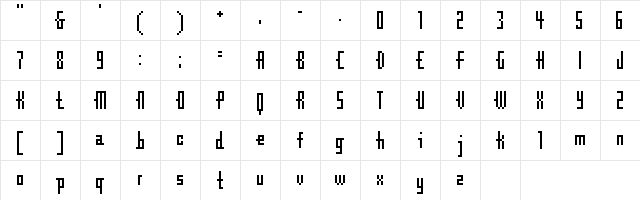
Cubebitmap 12point
Design Context for Cubebitmap Typeface
Cubebitmap celebrates the constraints of early digital type, turning pixel geometry into a distinctive and immediately recognisable style.
A natural choice for retro game titles, chiptune music branding, 8-bit UI, and digital nostalgia projects.
Pro Tip: Pair Cubebitmap with flat colour palettes and simple geometric UI elements to reinforce its digital aesthetic.